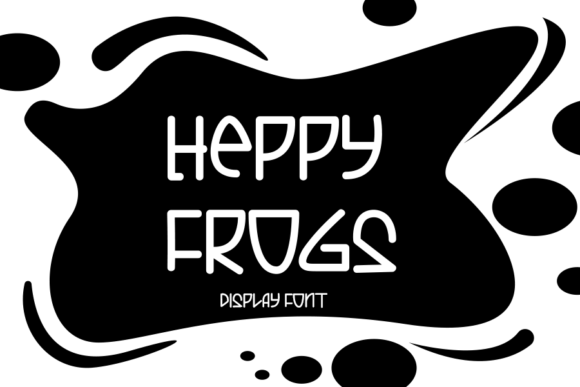
Welcome to the world of Heppy Frogs Font, where creativity and professionalism intertwine. This extraordinary display font is meticulously crafted to elevate your design endeavors to unparalleled heights.
Step into a realm where your business resume shines with unparalleled sophistication. Heppy Frogs Font empowers you to create a lasting impression, showcasing your skills and experience with an air of confidence and distinction. Its captivating strokes and meticulously designed characters command attention, ensuring your resume stands out from the crowd.
But Heppy Frogs Font's versatility extends far beyond the realm of business. Its enchanting charm breathes life into wedding invitations, imbuing them with a touch of elegance and whimsy. Unleash your creativity with stunning logos that exude professionalism and originality, leaving an unforgettable mark on your brand.
The applications of Heppy Frogs Font are limitless, igniting your imagination and inspiring countless design possibilities. Its playful nature adds a touch of whimsy to invitations, while its bold strokes lend an air of authority to labels and packaging. Whether you're crafting eye-catching headlines or designing captivating signatures, Heppy Frogs Font is your trusted companion.
Immerse yourself in a world of endless creativity and professional excellence with Heppy Frogs Font. Its versatility and charm will transform your designs, capturing hearts and leaving a lasting impression. Embrace the power of Heppy Frogs Font today and embark on a journey where imagination knows no bounds.